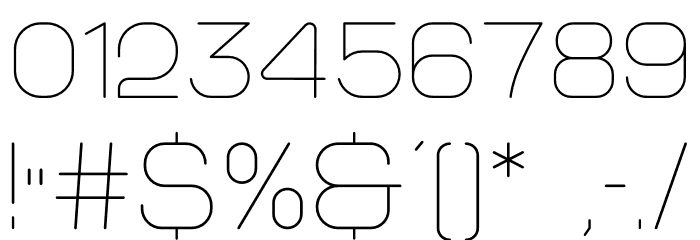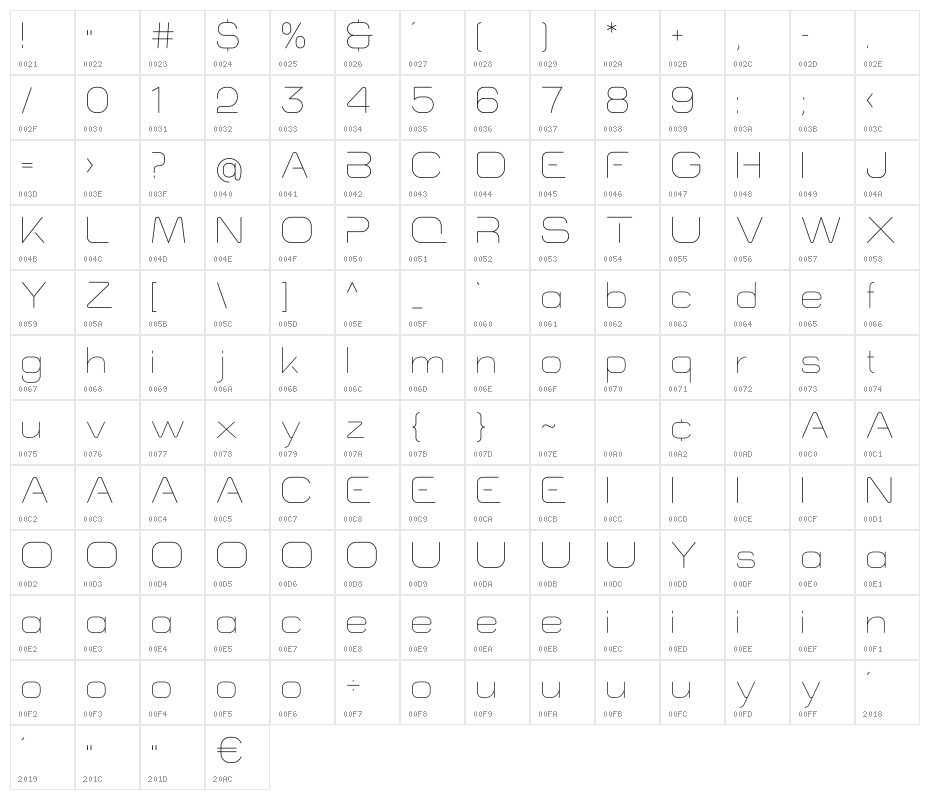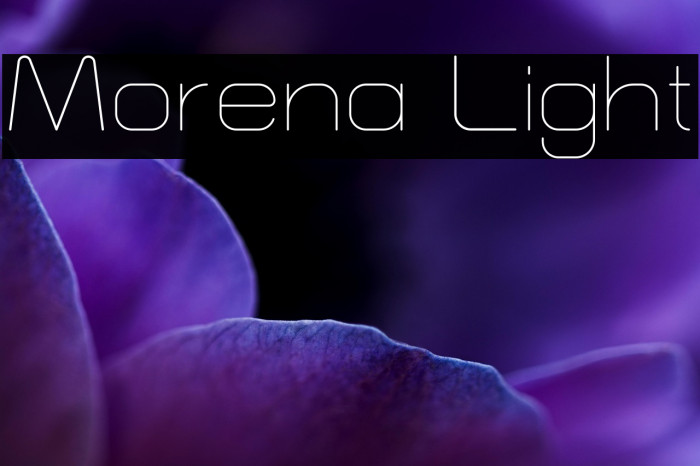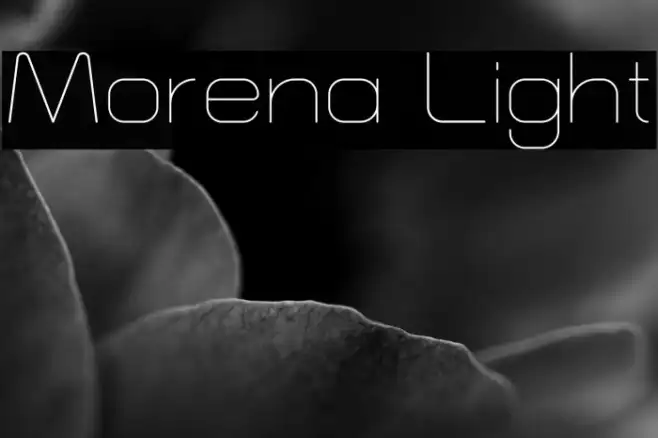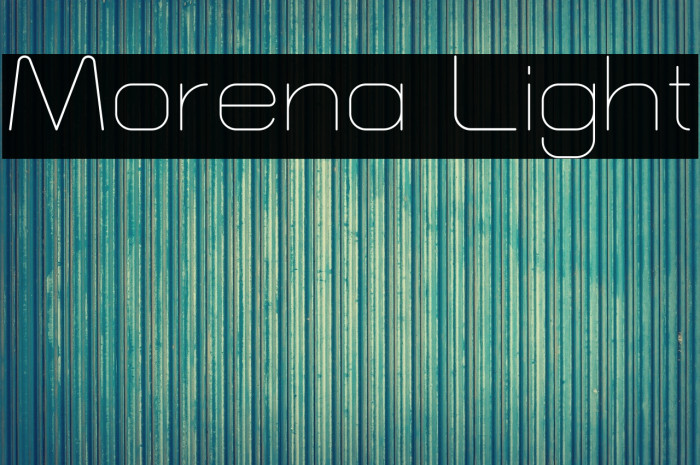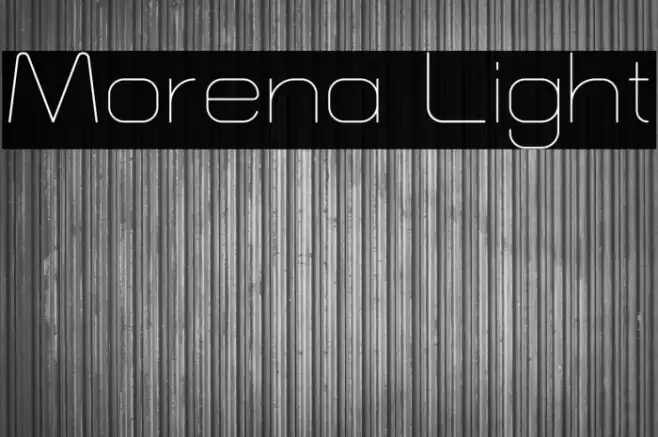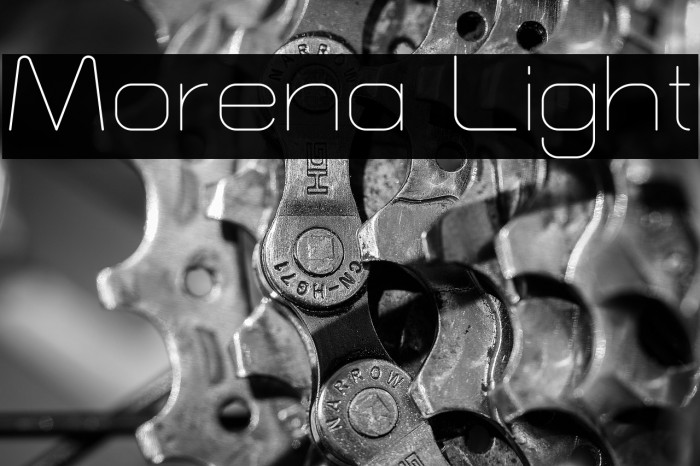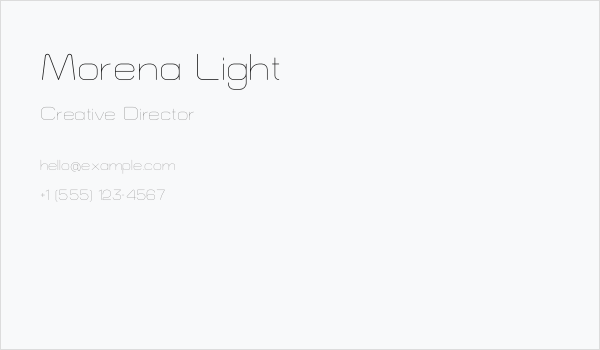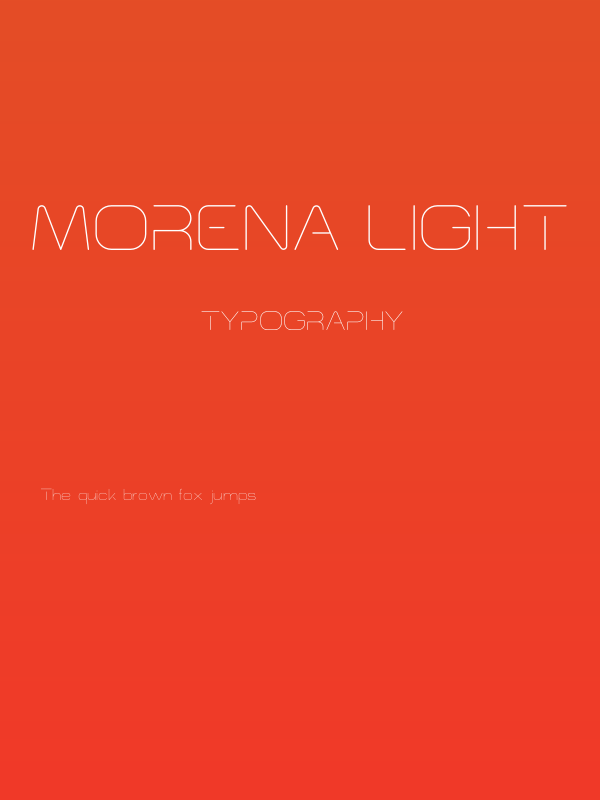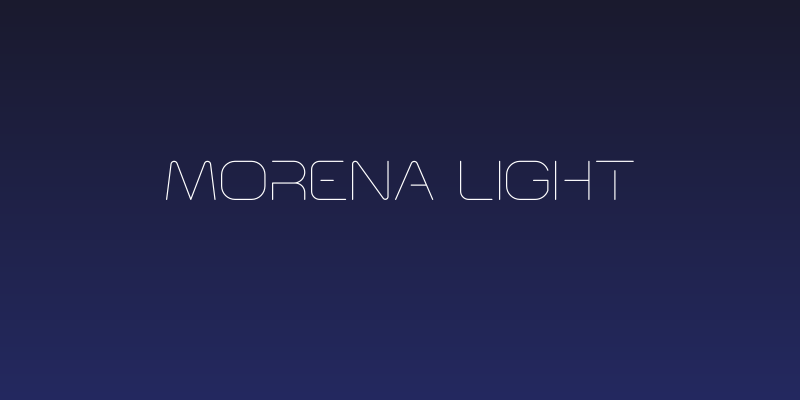
Morena Light Font
Morena Light Description
This font exhibits a sleek, modern design with a geometric structure. The characters are composed of thin, uniform lines that create a clean and minimalist appearance. The uppercase and lowercase letters maintain a consistent height, contributing to a harmonious and balanced look. The numerals and special characters follow the same design principles, ensuring a cohesive overall style. The font's simplicity and elegance make it suitable for contemporary design projects where clarity and sophistication are desired.
| Proposed Projects | Ideal for modern branding, tech-related designs, minimalist posters, and digital interfaces. |